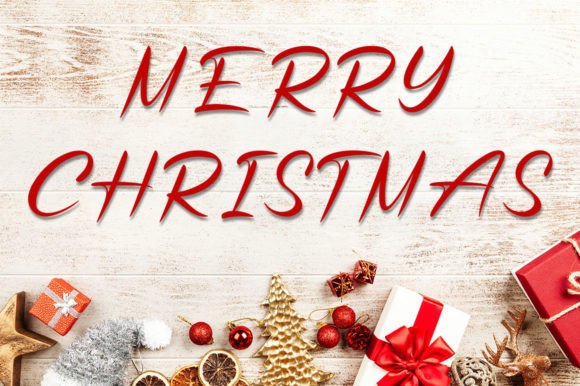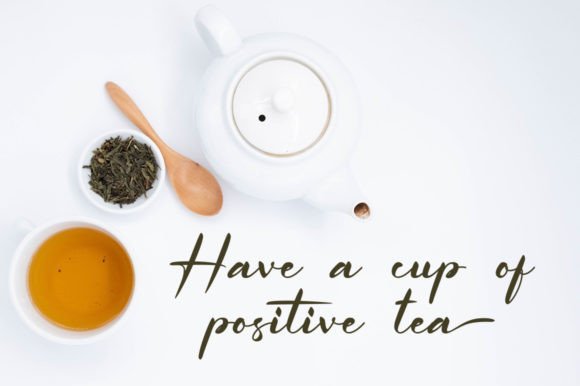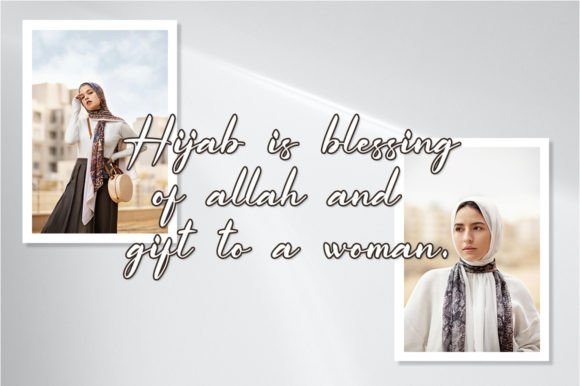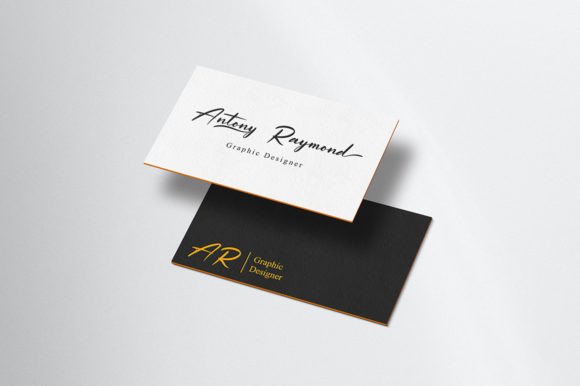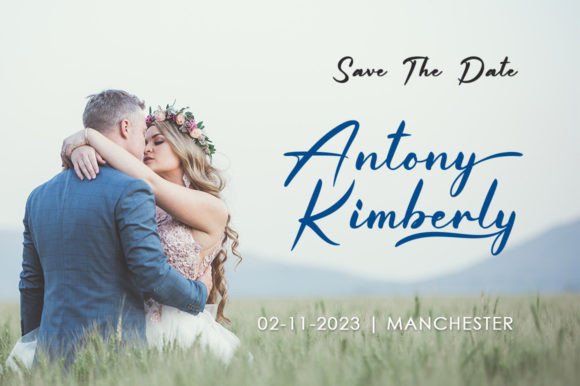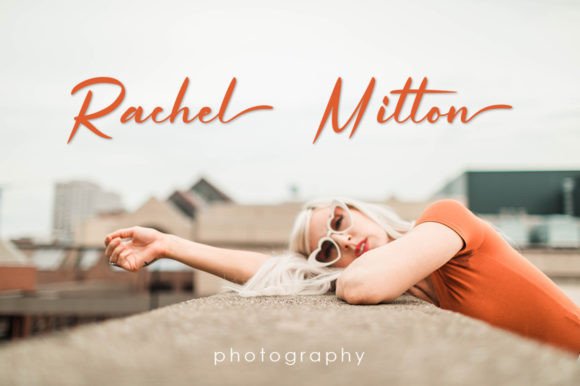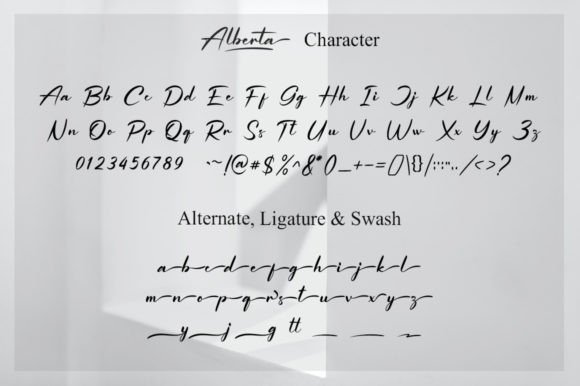
Alberta Font
About Alberta Font
Alberta is a neat and stylish handwritten script font. It has beautiful and well-balanced characters and as a result, it matches a wide pool of designs.